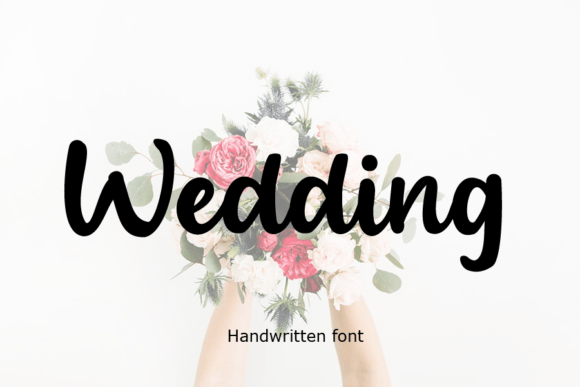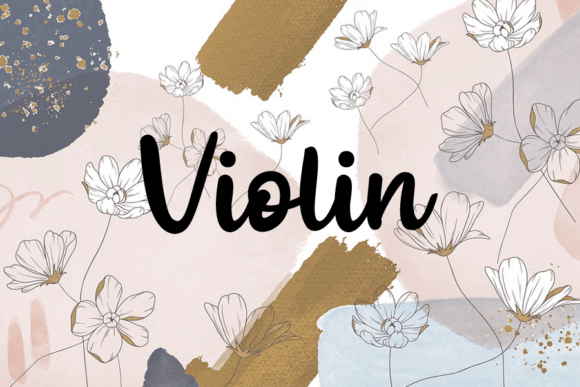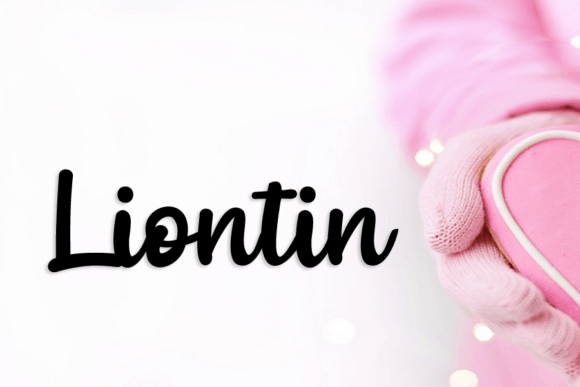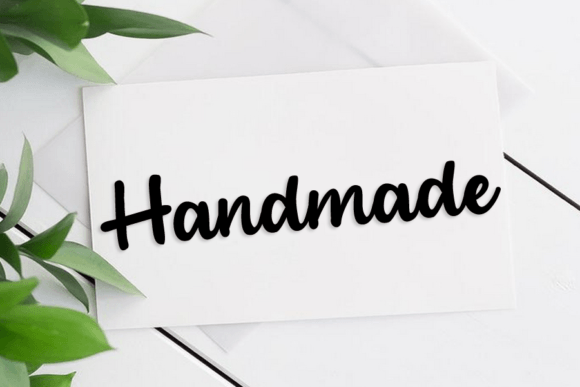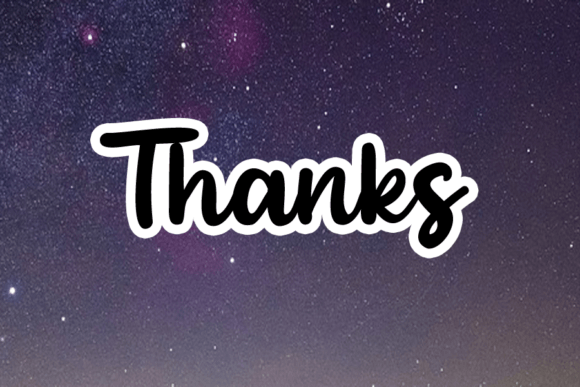
Wedding Font
About Wedding Font
Wedding Font is a graceful and flowing script typeface that brings a classic, handwritten charm to your creative work. Designed with elegance in mind, it features smooth curves and a timeless rhythm that will instantly elevate your designs. Whether you’re working on personal projects or professional branding, this font will help you leave a lasting impression.
With its refined touch and beautifully balanced characters, it conveys sophistication without being overly formal. This balance makes it both versatile and memorable—a rare combination that suits many different creative needs.
Ideal for Special Occasions and Professional Designs
From wedding invitations to branding projects, Wedding Font adapts well to a variety of uses. Its flowing style and romantic feel make it especially fitting for:
• Save-the-date cards
• Thank-you notes
• Elegant logos
• Luxury packaging
• Event branding
• Personalized gifts
Whether you’re designing for a celebration or simply want to add a romantic flair, this font makes it easy to communicate beauty and emotion.